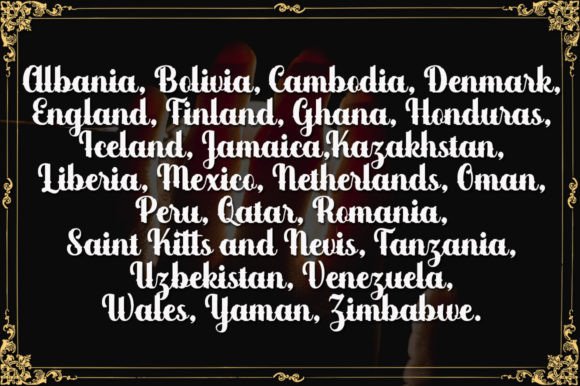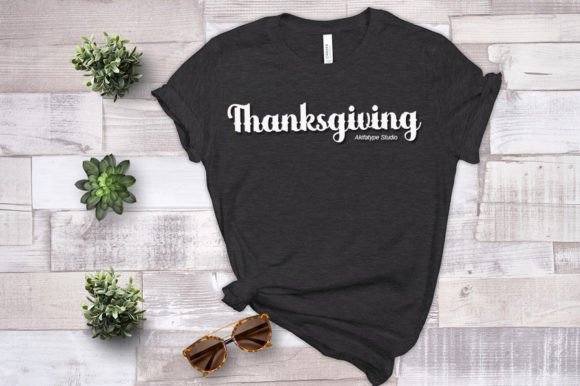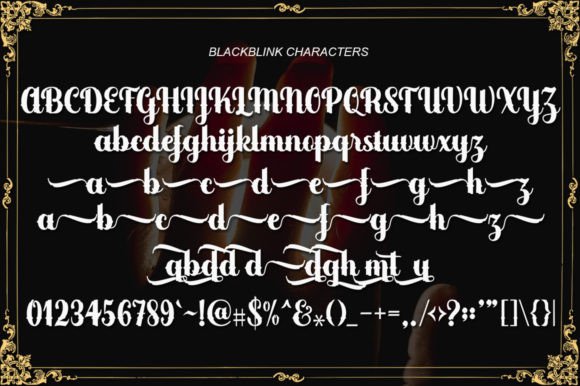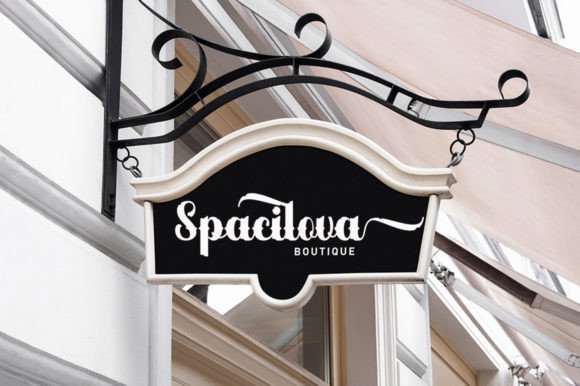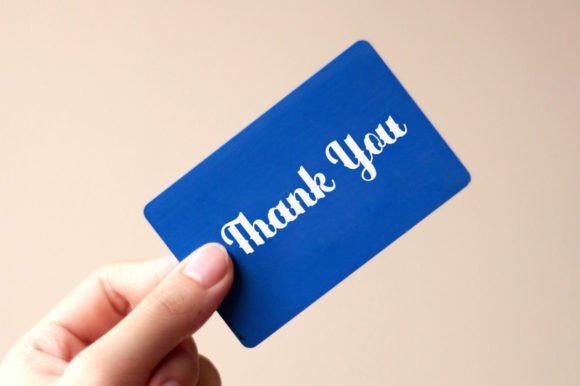
Introducing Blackblink Font: Elevate Your Designs with Vintage Elegance
Are you a designer or crafter looking for a unique and elegant font to take your creative projects to the next level? Look no further than Blackblink Font, a stunning vintage calligraphy typeface that is sure to impress. With its beautiful, flowing lines and intricate details, Blackblink Font is the perfect addition to any design, from wedding invitations and branding materials to digital graphics and craft projects.
What Makes Blackblink Font So Special?
Blackblink Font is more than just a beautiful font – it’s a powerful design tool that can help you create extraordinary designs with ease. Here are just a few of the features that make Blackblink Font stand out:
- Vintage Calligraphy Style: Blackblink Font features a beautiful, vintage calligraphy style that is perfect for creating elegant and sophisticated designs.
- PUA Encoded: Blackblink Font is PUA (Private Use Area) encoded, which means that you can access all of the glyphs and swashes with ease. This makes it simple to customize your designs and add unique touches.
- Easy to Use: Despite its intricate details, Blackblink Font is surprisingly easy to use. Whether you’re a seasoned designer or a crafting novice, you’ll be able to get started with Blackblink Font right away.
- Highly Versatile: Blackblink Font is perfect for a wide range of design projects, from digital graphics and branding materials to wedding invitations and craft projects.
The Benefits of Using Blackblink Font
So why should you choose Blackblink Font for your next design project? Here are just a few of the benefits of using this amazing font:
- Add a Touch of Elegance: Blackblink Font adds a touch of elegance and sophistication to any design, making it perfect for high-end branding and marketing materials.
- Stand Out from the Crowd: With its unique and intricate details, Blackblink Font is sure to help your designs stand out from the crowd.
- Save Time and Effort: Thanks to its ease of use and PUA encoding, Blackblink Font can help you save time and effort on your design projects.
- Perfect for Crafters: Blackblink Font is also perfect for crafters, who can use it to add a personal touch to their handmade projects.
How to Use Blackblink Font